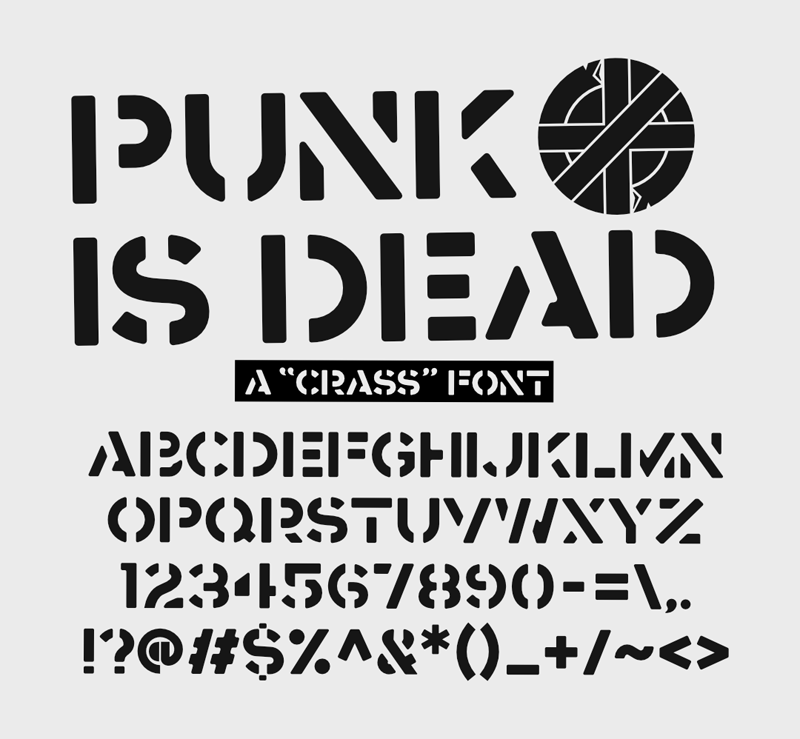
Preview and download FW Punk Is Dead Font. Created by Christy Castro in Fancy Stencil, Army styles with 100% Free license.
Font name: | FW Punk Is Dead |
Author: | Christy Castro |
A new version of an old classic inspired by the English punk band Crass(1977-1984) Use it, share it, enjoy it. You can show support by visiting my site Fontwebsite.com and making a donation. |